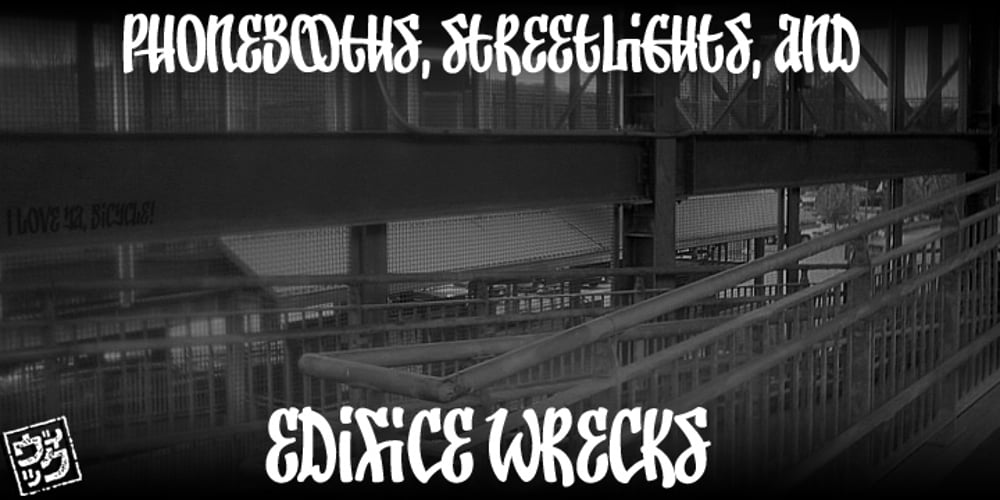
Edifice Wrecks Font Family was designed by Vic Fieger and published by Vic Fieger. Edifice Wrecks contains 1 styles and family package options. A graffiti-esque “tag” font designed to fit into thin and confined spaces. Edifice Wrecks is an OpenType font with several automatic ligatures built in.